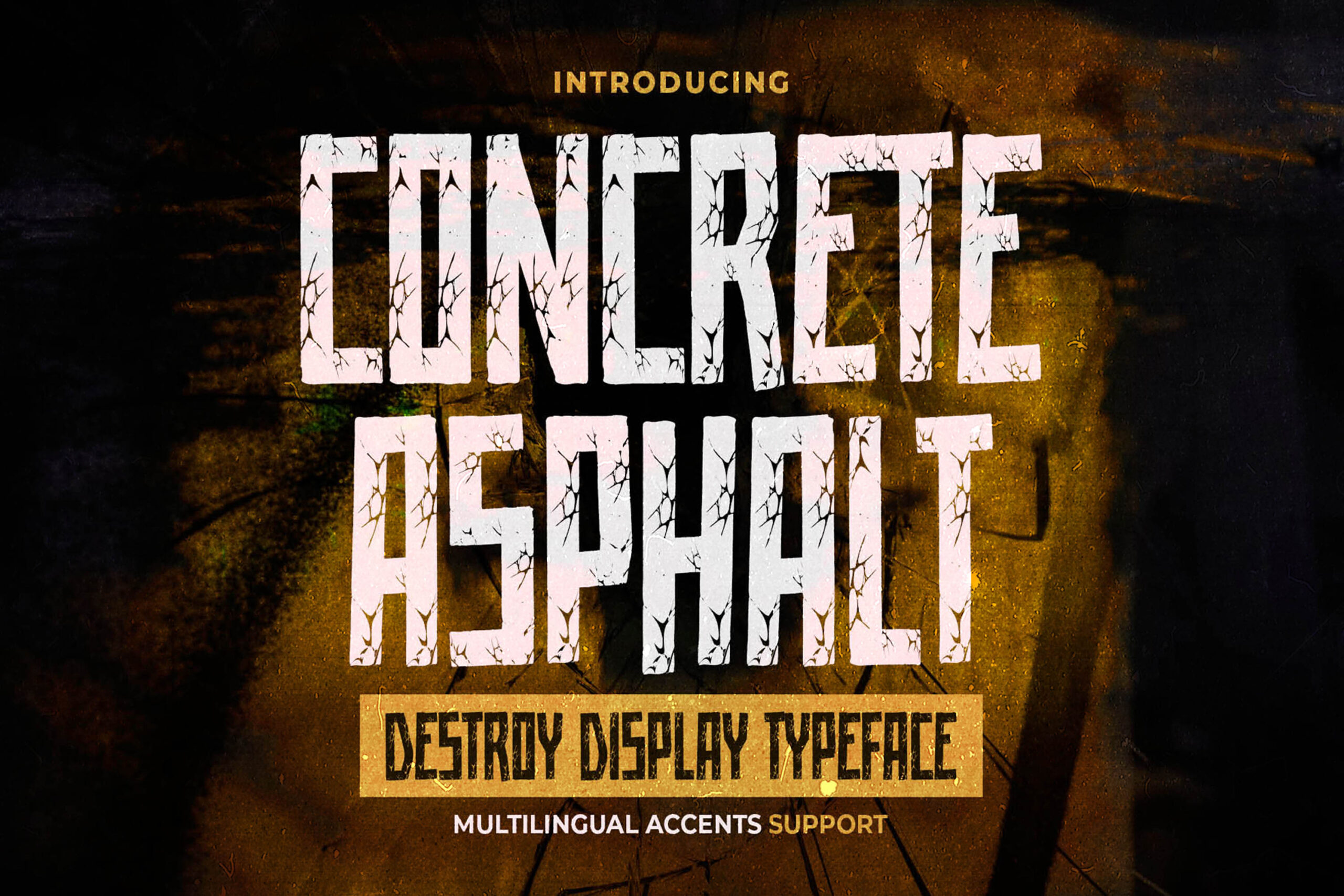
Concrete Asphalt – Destroy Display Typeface , modern style and dramatic movement that is written casually and quickly.
The best for labels,poster,project , designs look modern, authentic and unique. It’s perfect for labels, quotes, posters, DIY projects, branding, packaging, greeting cards, websites, photography overlays, signs, scrapbooking, tags and so much more! That is why Concrete Asphalt has a textured, and cool characteristic more natural look.